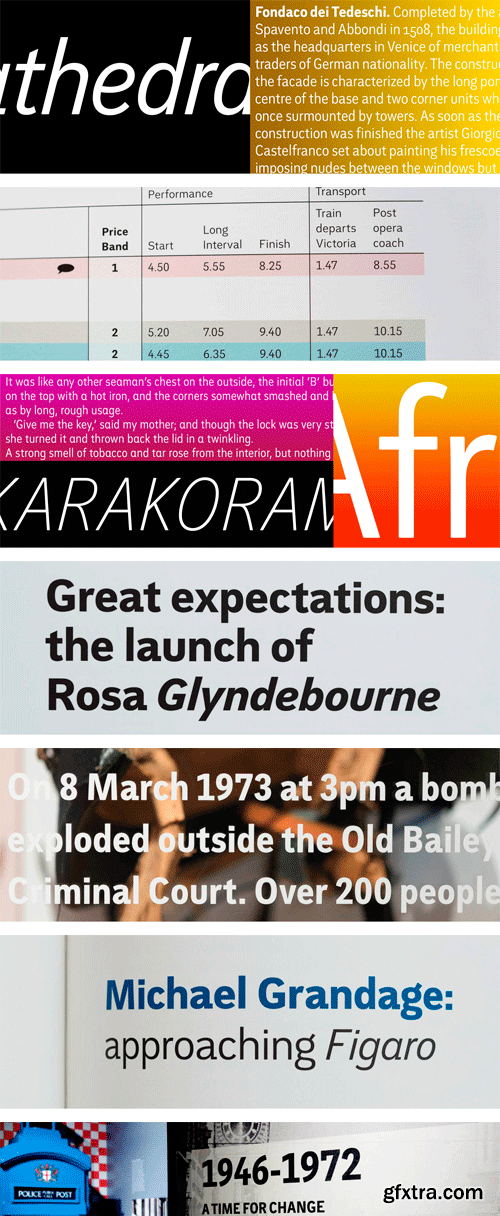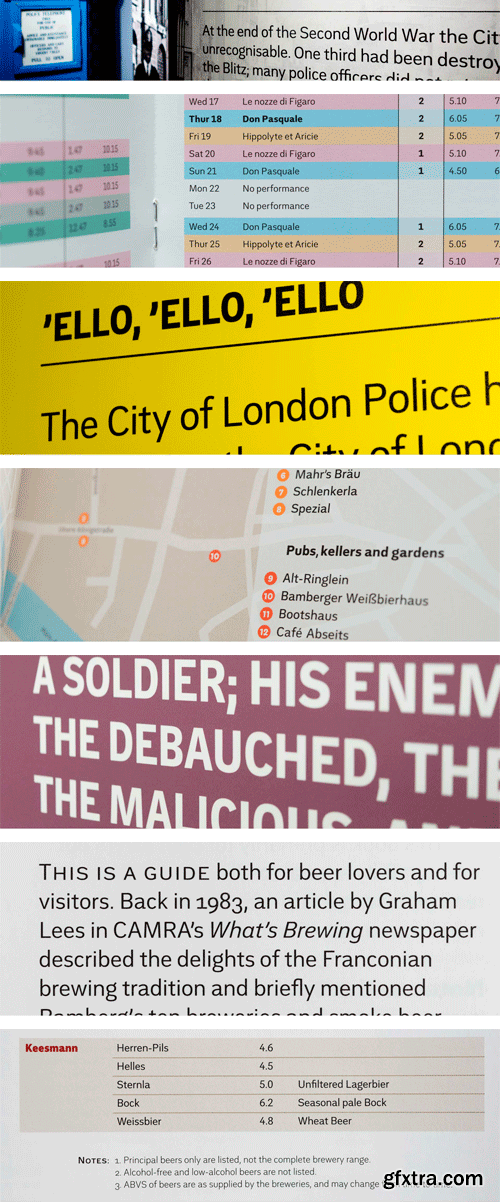
Trilogy Sans Condensed Font Family
Imbued with a quiet elegance, the letter shapes are reliably functional. It performs exceptionally well with the demands of information graphics, such as timetables. The various widths and weights allow the type to adapt its personality across a massive range, offering a huge scope for potential use. As part of the wider Trilogy family it shares certain details, and harmonises well, with Trilogy Egyptian and Trilogy Fatface.